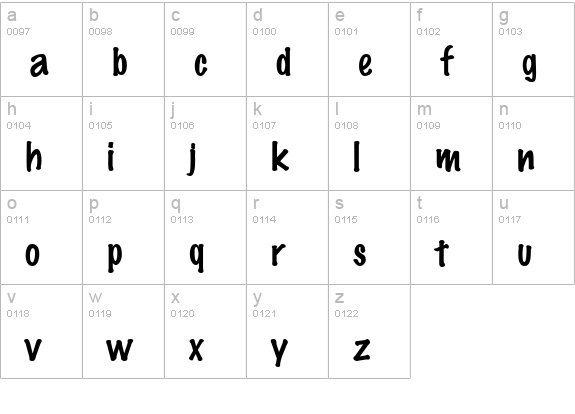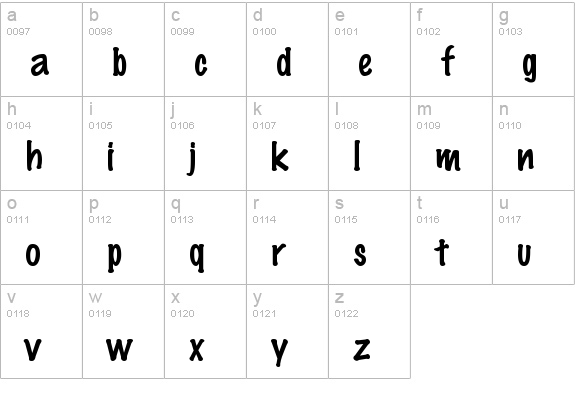
Marker Normal Font Details
Marker Normal is the standard, neutral variant in the Marker typeface family \xE2\x80\x94 well suited to general body text, paragraphs, and standard typographic work.
Marker Normal font is a delightful and versatile typeface that captures the essence of hand-drawn markers. With its bold strokes and playful curves, this font brings a touch of creativity and spontaneity to any design project. Whether you're creating a poster, logo, or invitation, Marker Normal font adds a charming and unique element that is sure to catch the eye. One of the best things about Marker Normal font is that it is free! Yes, you read that right – this amazing font is freely available to download at FontsMarket.com. This means that you can use it for personal or commercial projects without worrying about any licensing restrictions or fees. It's a fantastic opportunity to enhance your designs with a high-quality font without breaking the bank. With its easy-to-read letterforms and friendly appearance, Marker Normal font is perfect for a wide range of applications. It works equally well for headlines, body text, or even as a decorative element. Its versatility and legibility make it a go-to choice for designers looking to add a touch of handmade charm to their work. Whether you're a professional designer or just starting out, Marker Normal font is a must-have in your font library. Its free availability and high-quality design make it an excellent choice for anyone looking to elevate their projects. So why wait? Head over to FontsMarket.com and download Marker Normal font today – and let your creativity flow freely!